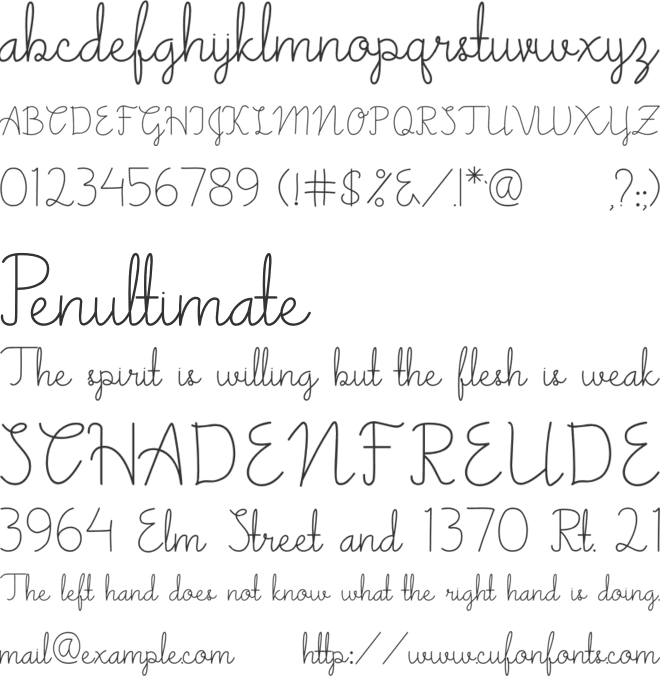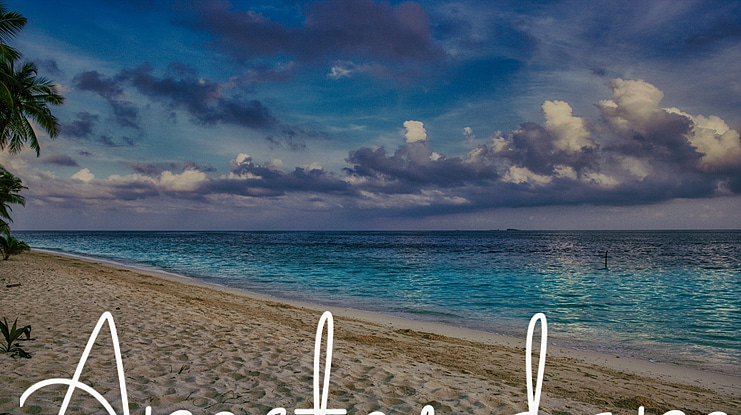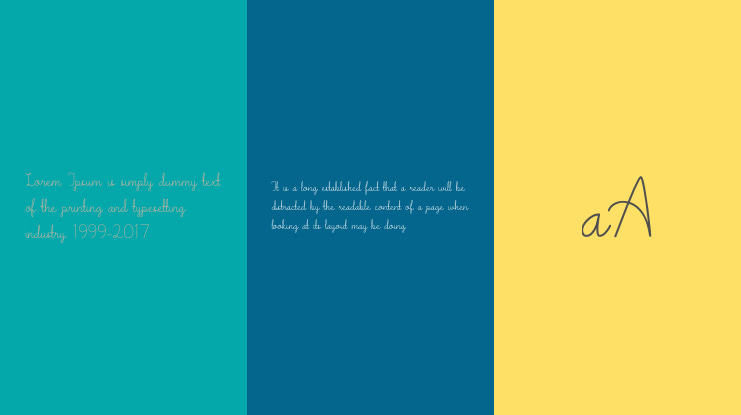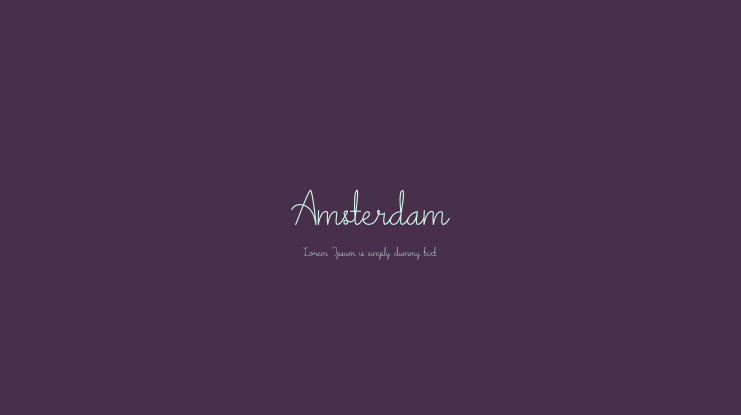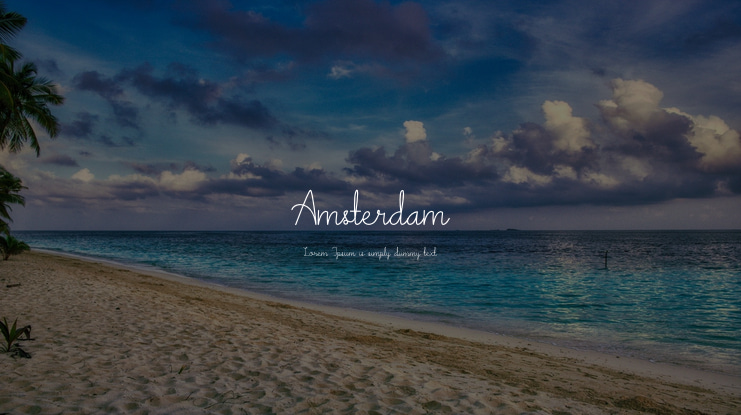
Amsterdam Font
Amsterdam is a beautiful and chic script font. It is suitable for branding, wedding invitations, and other romantic projects. This font is PUA encoded which means you can access all of the glyphs and swashes with ease!